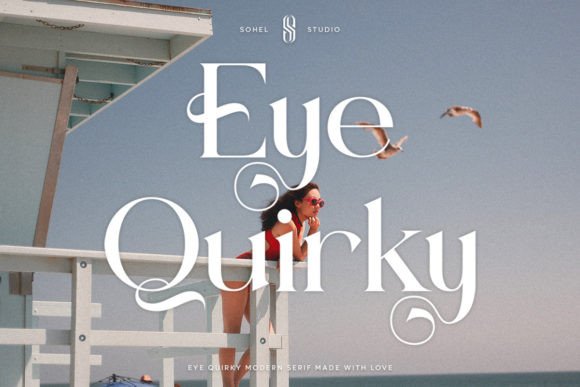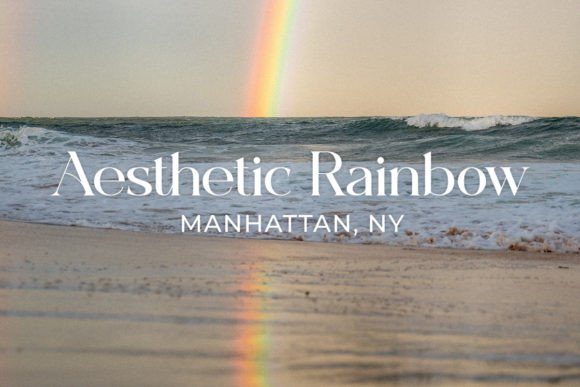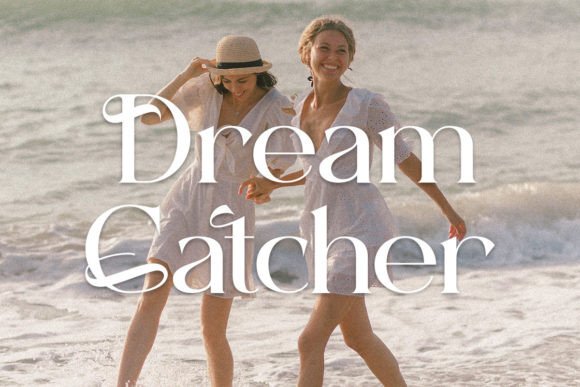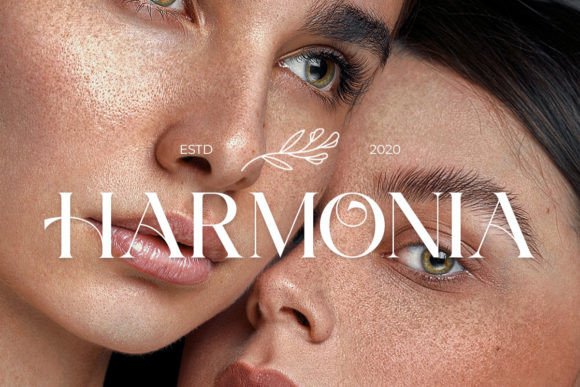
Eye Quirky Font: A Unique & Elegant Serif for Modern Branding
About the Eye Quirky Font
Add a touch of class to your work with the Eye Quirky Font, a truly exceptional typeface. Eye Quirky is a Modern elegant serif typeface with a Unique alternative.
This typeface is perfect for an elegant & luxury logo, classy editorial design, women’s magazine, fashion brand, cosmetic brand, fashion promotion, modern advertising design, invitation card, art quote, home decoration, book/cover titles, special events, Tote bag, T-shirt, advertising and much more.
Eye Quirky’s elegant serif forms and unique alternates shine in headlines, logos, and short-form text applications like packaging and posters. Its refined aesthetic lends itself well to luxury branding and high-end products. Avoid using it for large blocks of body text or UI elements where readability is paramount; its decorative nature can hinder legibility in smaller sizes or continuous paragraphs.
Pairing Eye Quirky effectively requires considering its inherent elegance. A clean sans-serif like Lato or Montserrat would provide a strong contrast and enhance readability in supporting text. For a more playful feel, a handwritten script font can complement its modern yet classic qualities.
Its personality is best described as sophisticated and subtly playful—a balance of elegance and quirkiness. Brands aiming for a modern yet classic feel, with a touch of unique personality, will find it a strong asset.